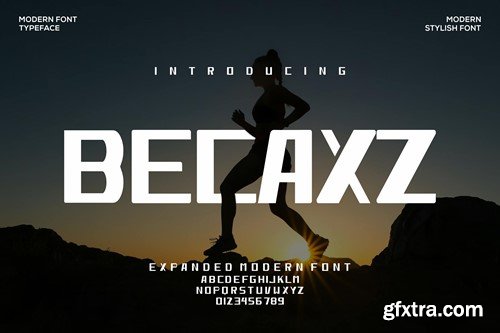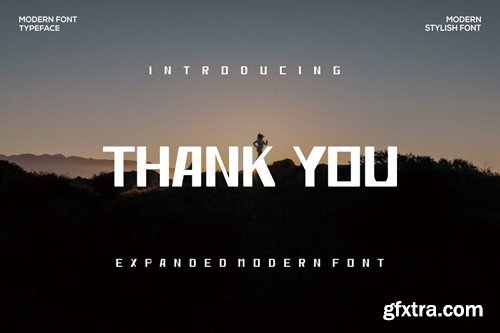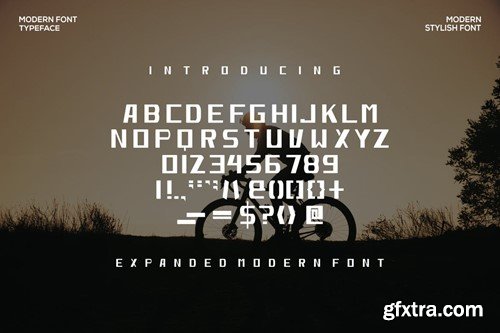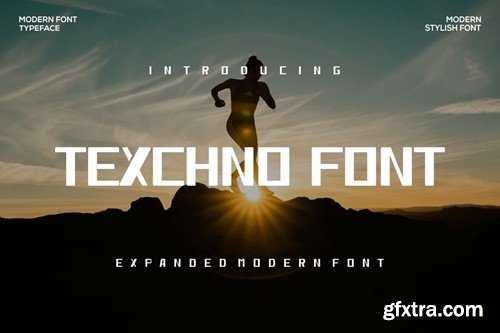
Becaxz Font
Introducing our new product Becaxz Font - Modern Font is a bold and authentic display font. The font is suitable for any branding project like logo, esport, and many more. outstanding in a wide range of contexts. availlable